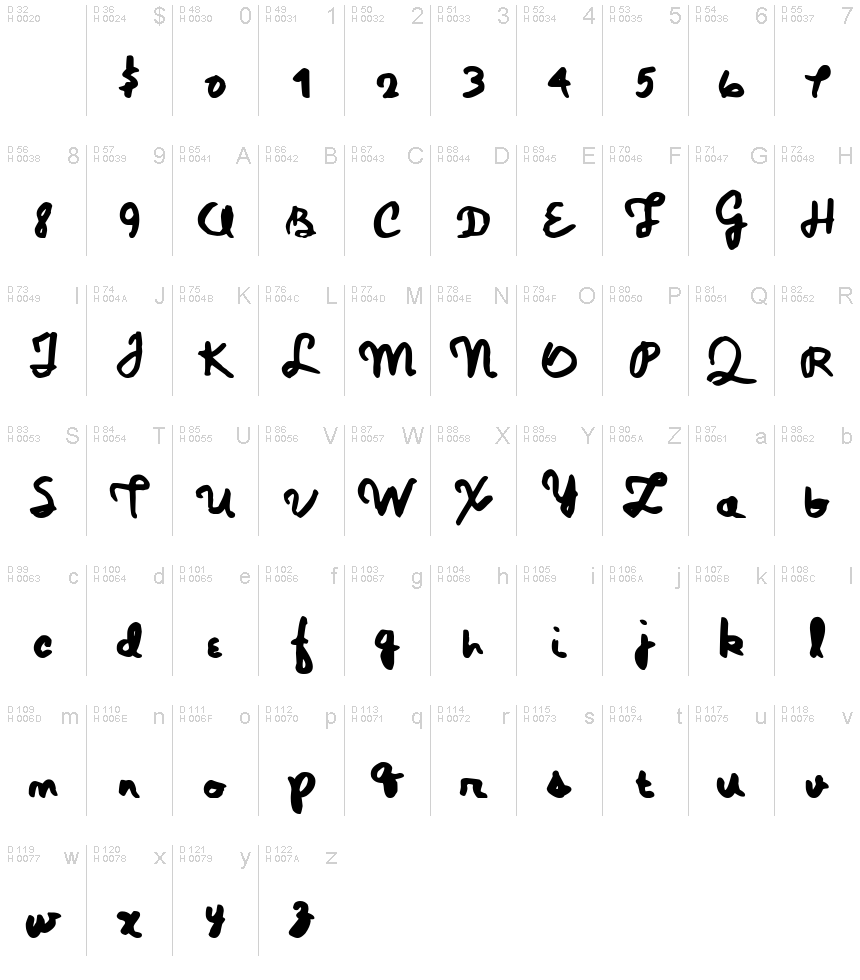
MagicPens
Embodying the free-flowing elegance of a handwritten script, the "Magic Pens" font radiates a captivating charm. This whimsical creation by Xerographer Fonts - Max Infeld effortlessly blends organic curves and dynamic strokes, conveying a sense of artistry and personal expression. The font's distinctive character shines through in its playful, yet refined aesthetic, making it a versatile choice for a variety of design applications.
Crafted to elevate any project with a touch of authentic, handcrafted flair, "Magic Pens" by Xerographer Fonts - Max Infeld excels in branding, packaging, and editorial design. Its fluid lines and natural letter forms lend themselves beautifully to feminine and artistic compositions, while also complementing more modern, minimalist aesthetics. Whether you seek to infuse your designs with an enchanting, handwritten essence or require a font that seamlessly bridges the gap between formal and informal, "Magic Pens" delivers a captivating typographic experience.